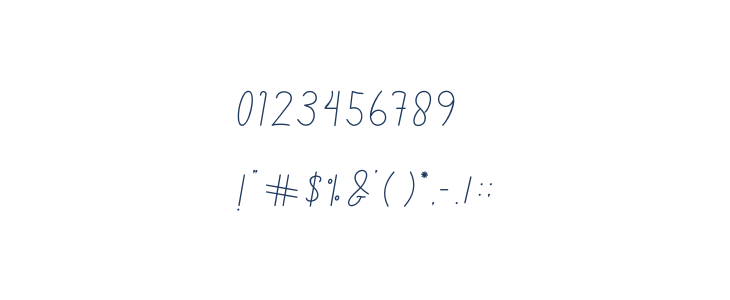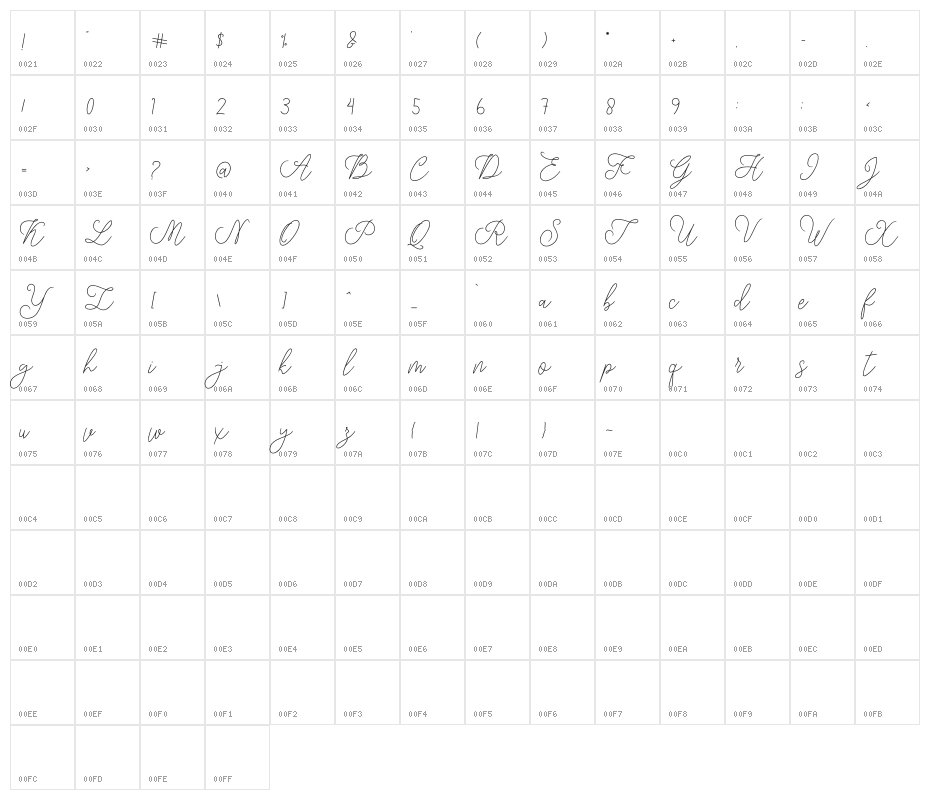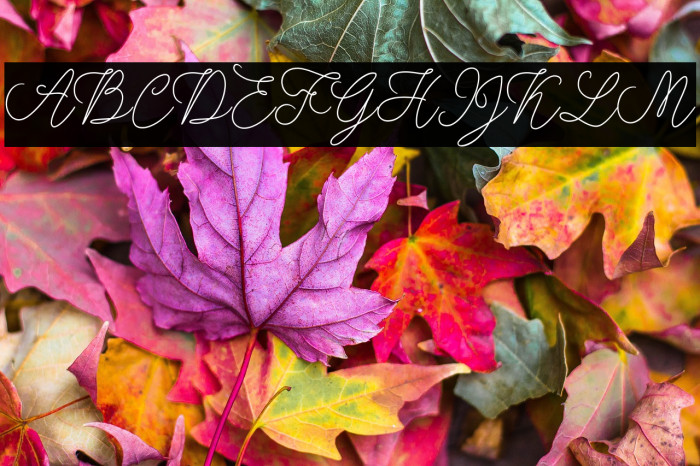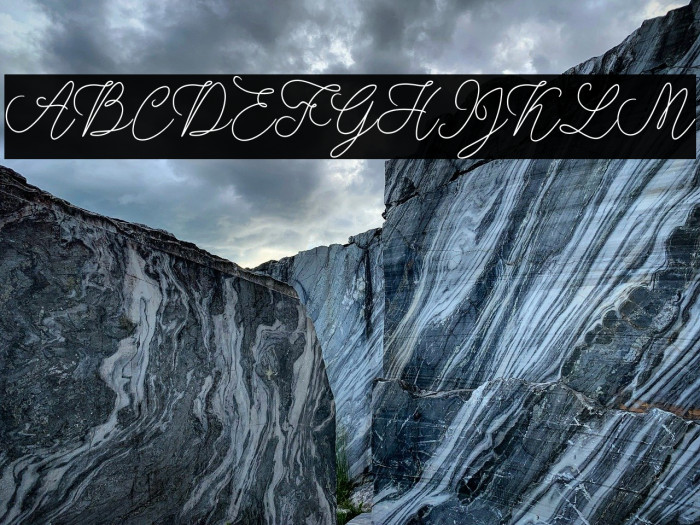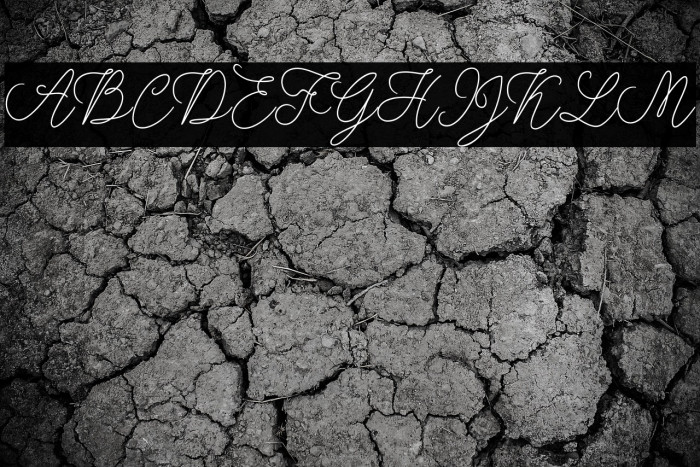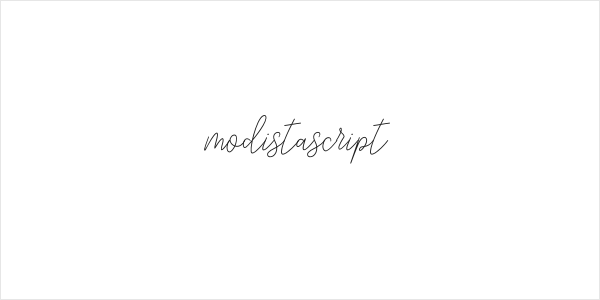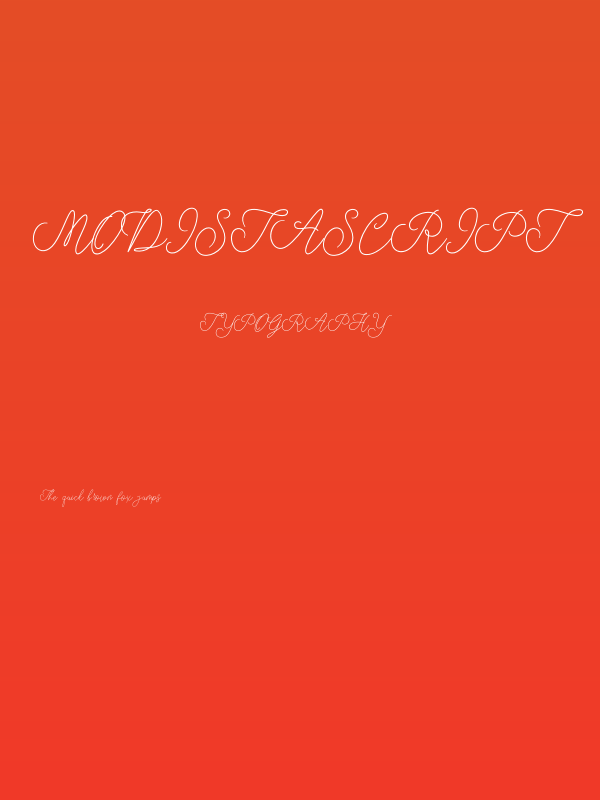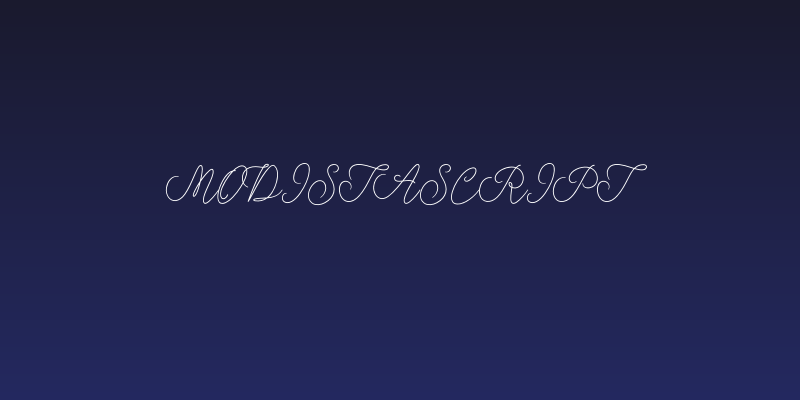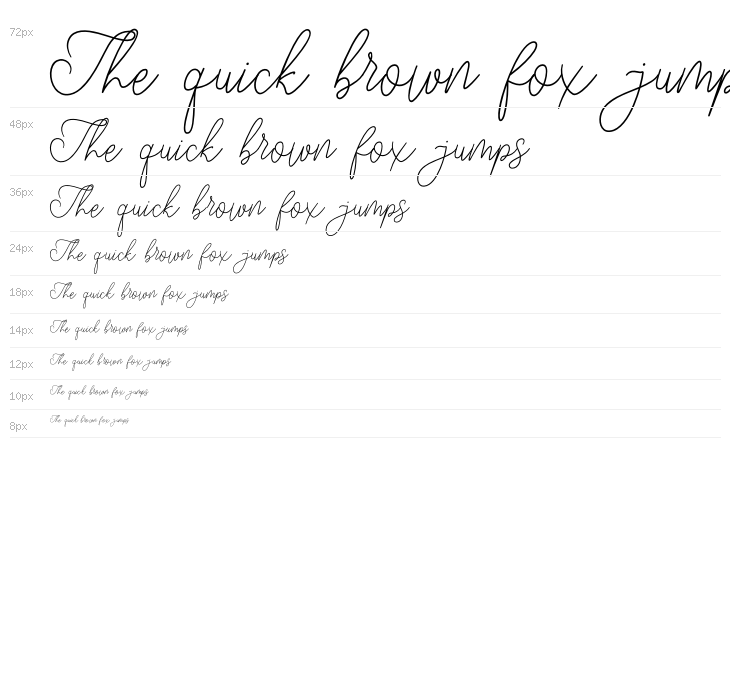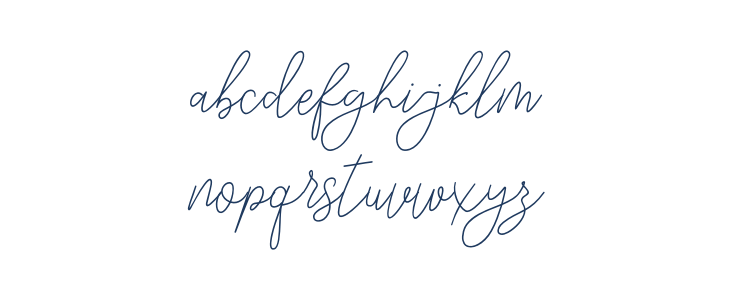
modistascript Font
modistascript Description
This elegant script font features fluid, cursive strokes that mimic the natural flow of handwriting. The uppercase letters are characterized by their graceful loops and swirls, giving them a sophisticated and artistic appearance. The lowercase letters maintain a consistent style, with smooth connections between characters that enhance readability while preserving the font's decorative nature. The numerals and special characters are designed to complement the overall script style, maintaining the same delicate and flowing aesthetic. This font is perfect for adding a touch of elegance and personalization to any project.
| Overall Style | Elegant |
| Use Case | Logos, Invitations, Decorative text |
| Proposed Projects | Ideal for wedding invitations, greeting cards, branding, and elegant logos. |